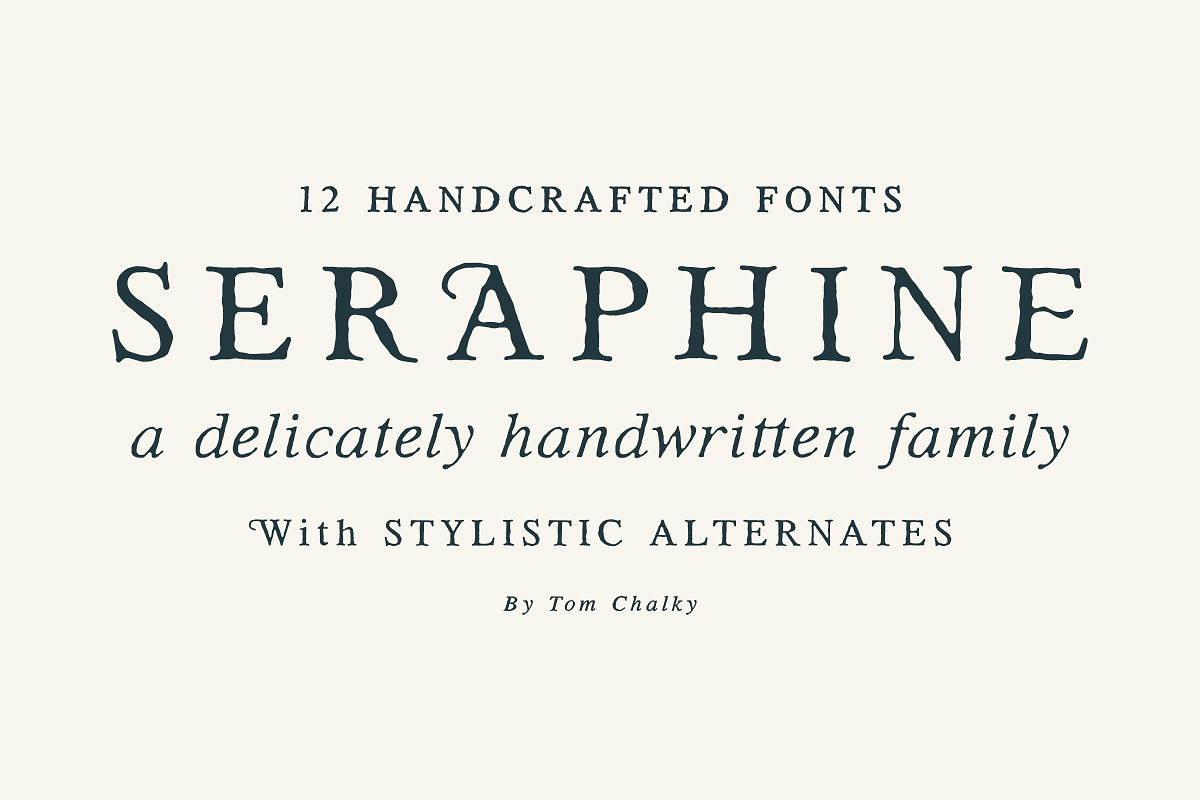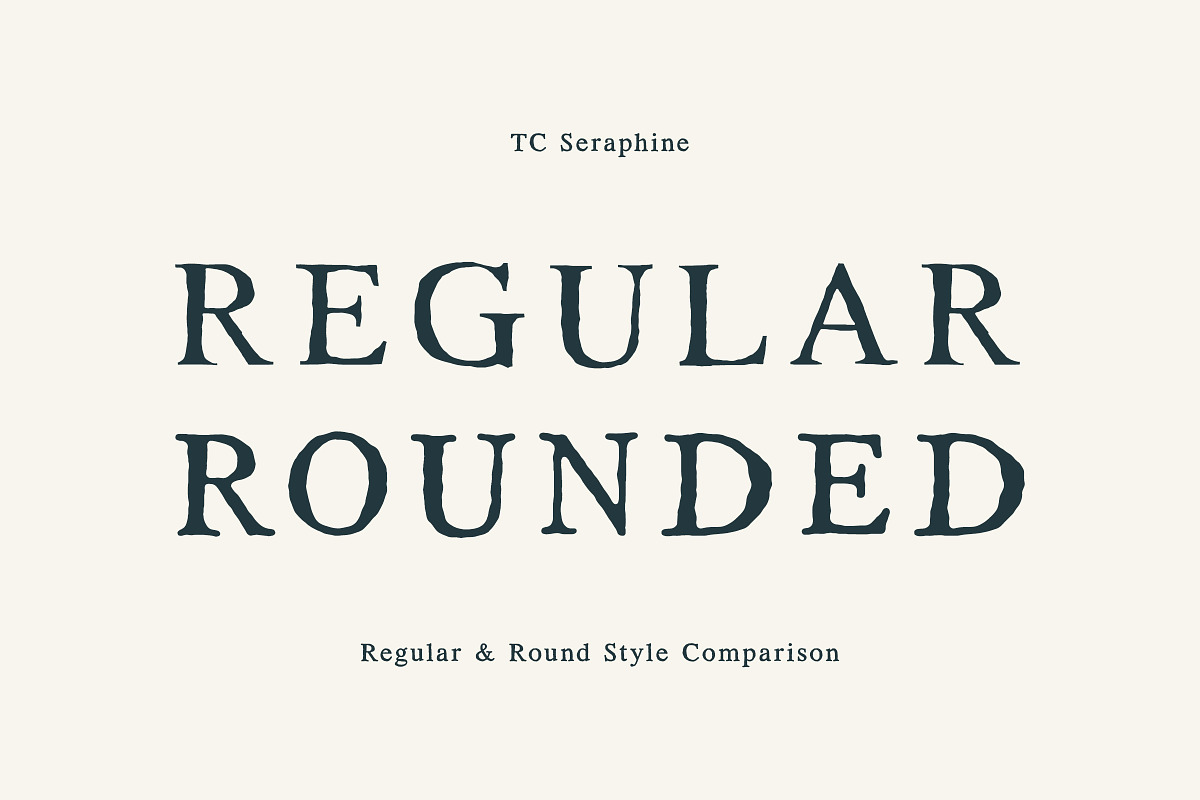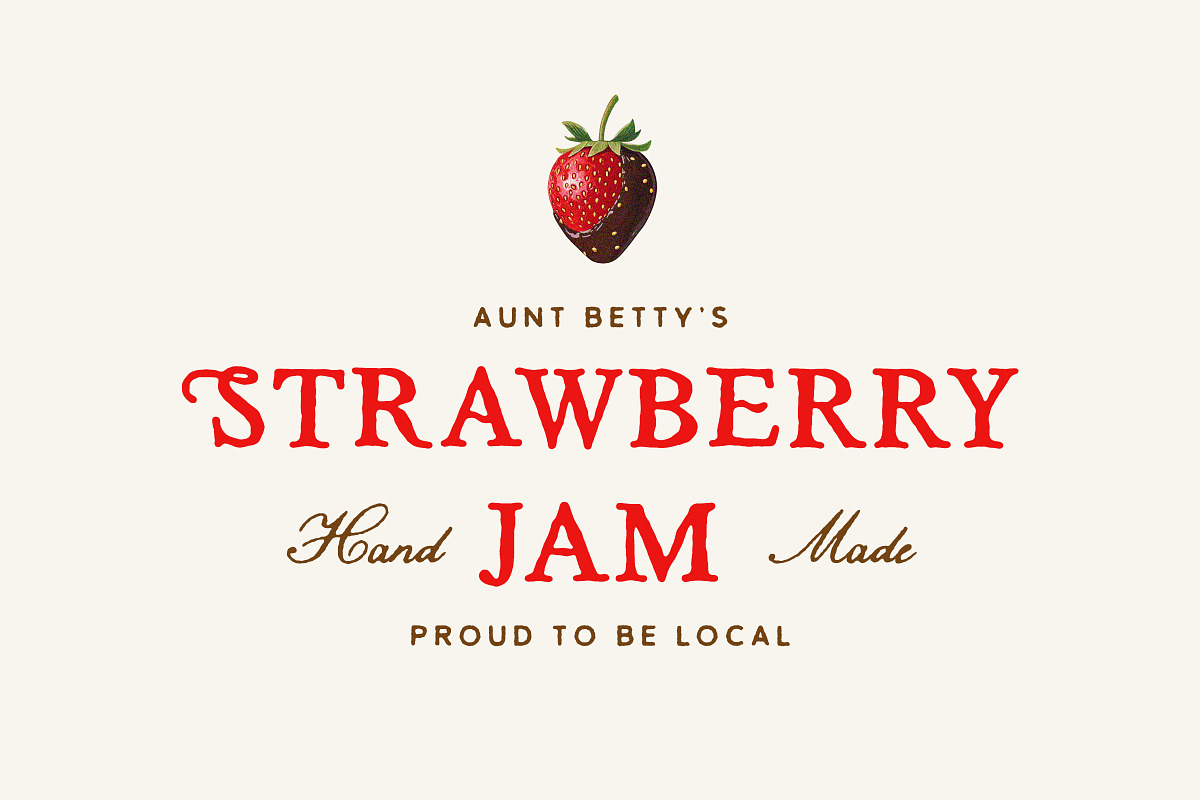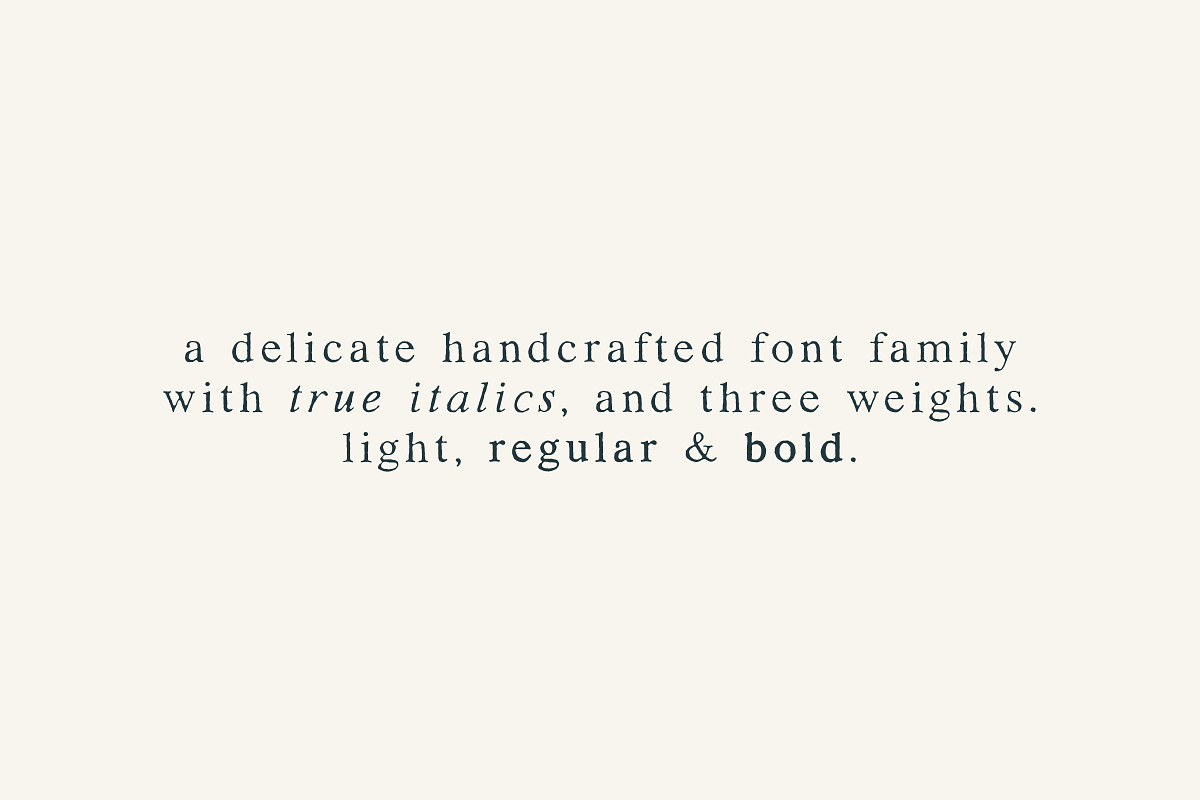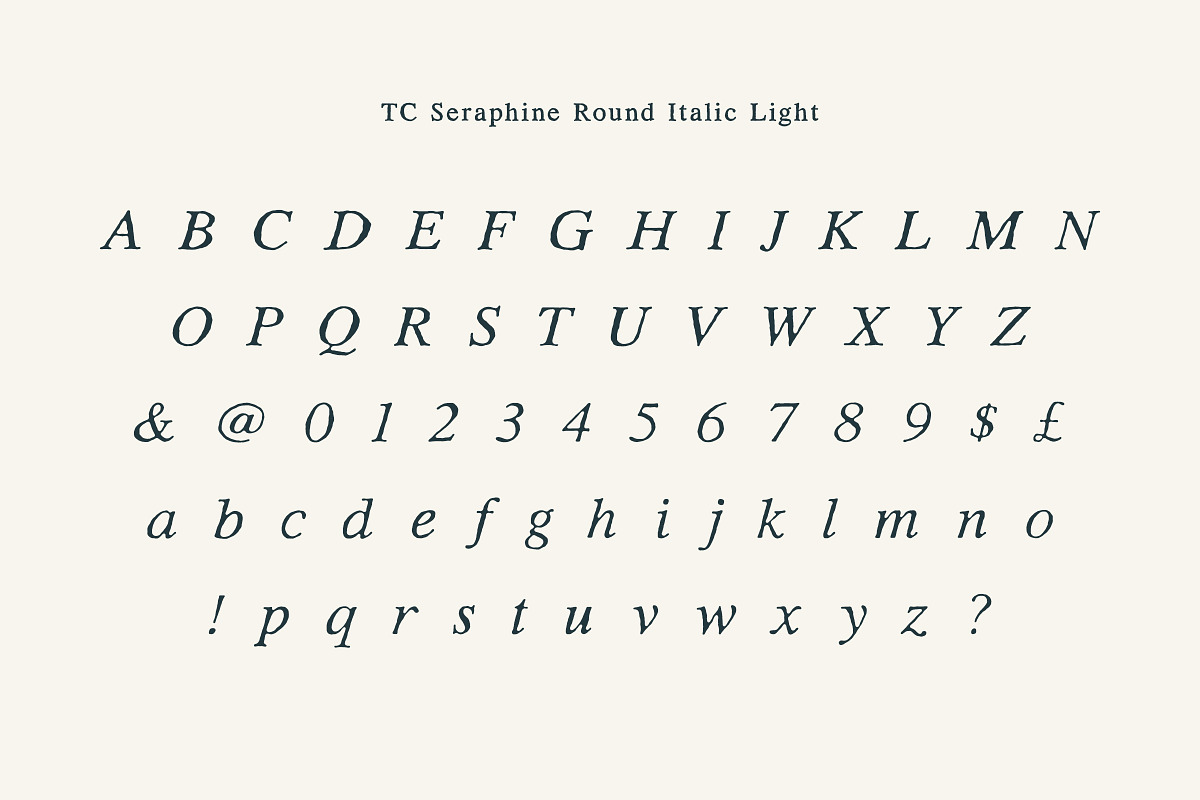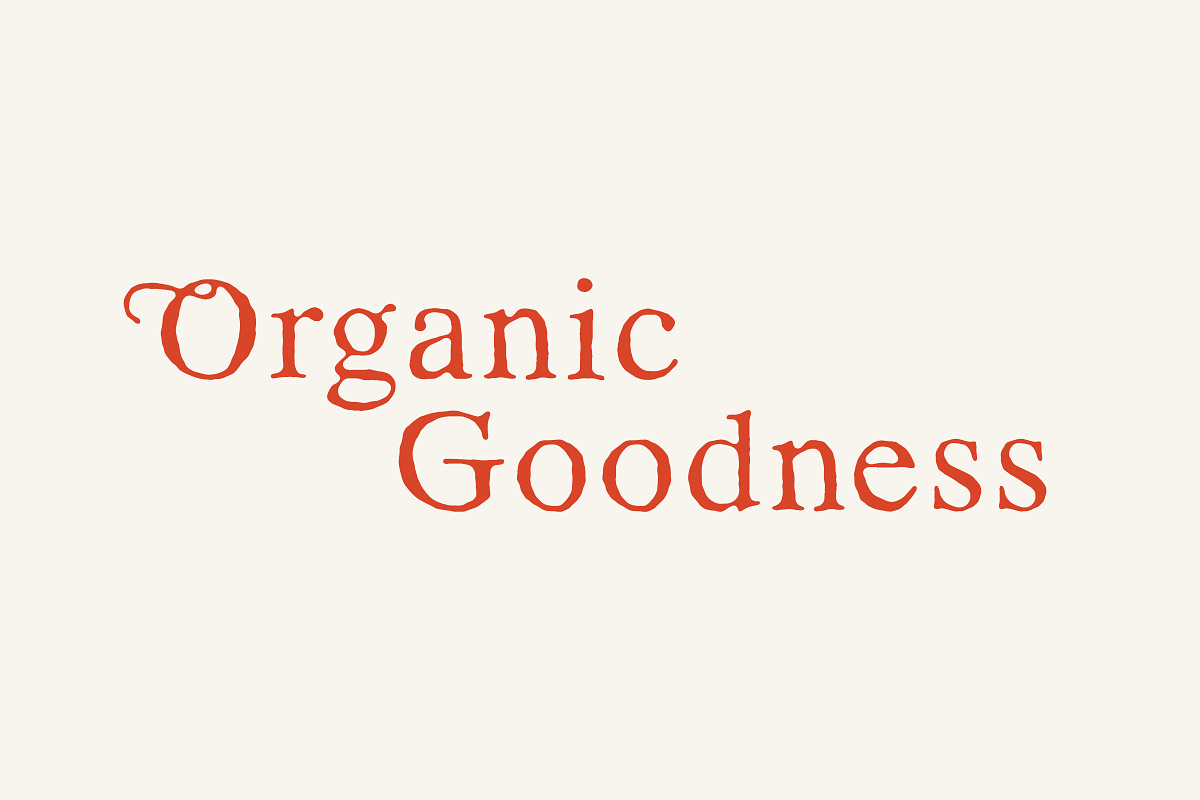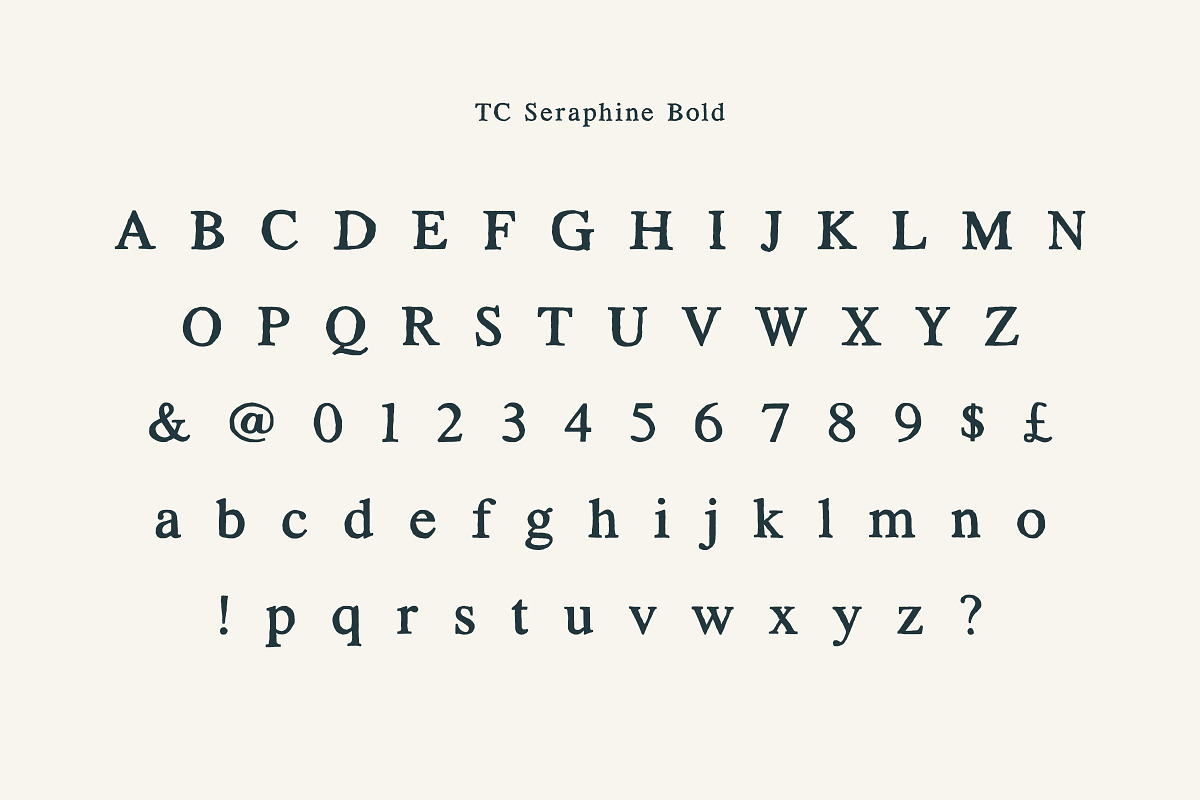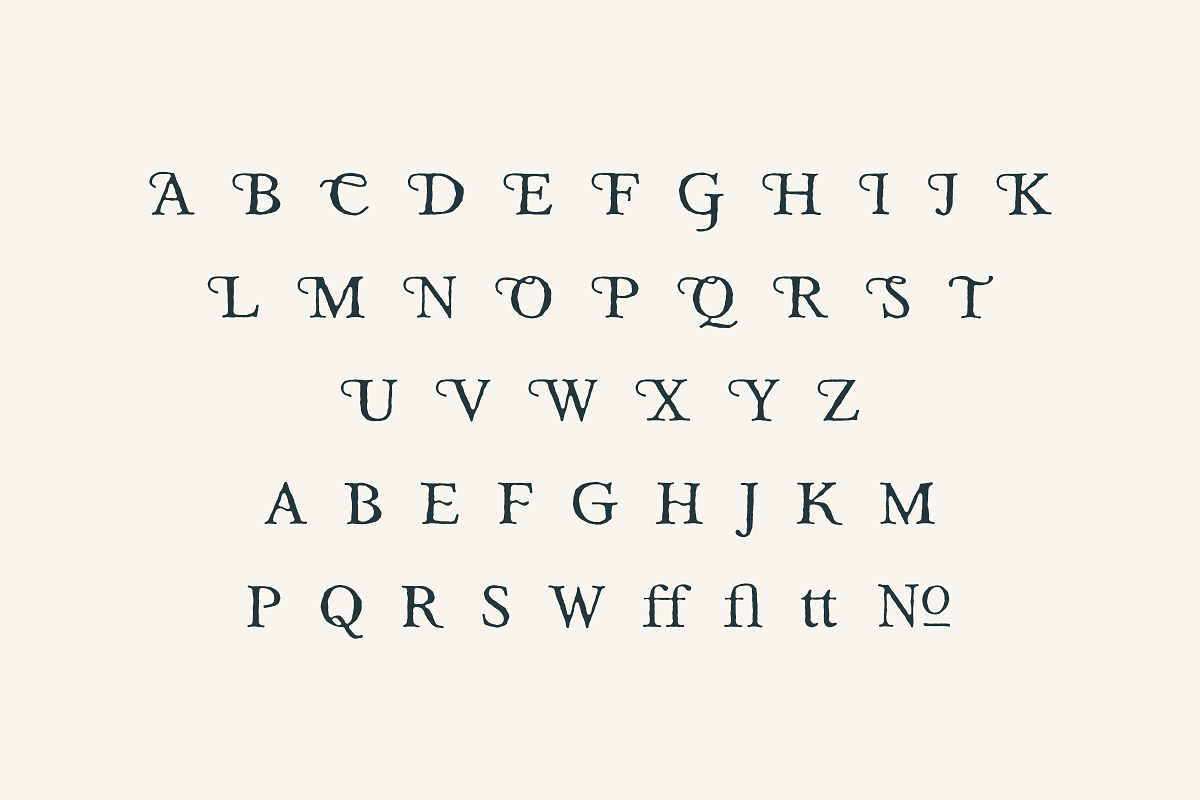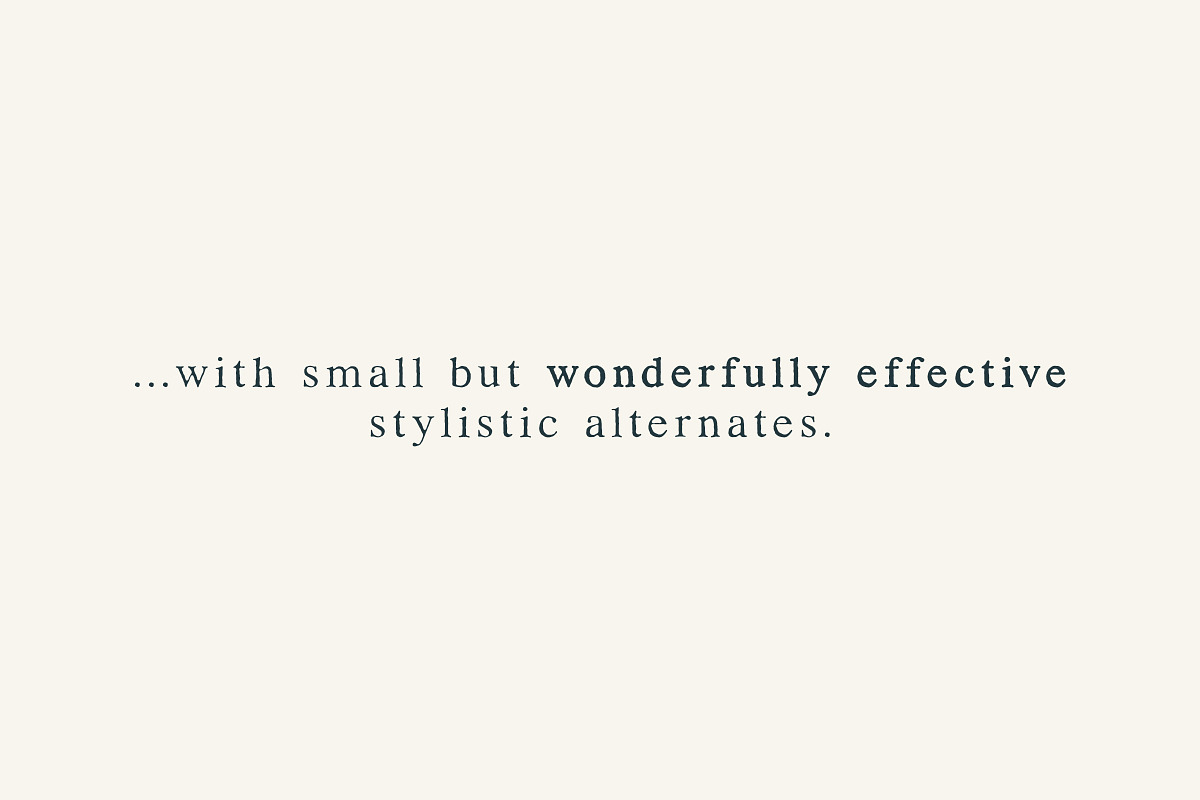
Seraphine Serif Font Family
Meet Seraphine – a serif font family with a delicate, handcrafted touch. With 12 fonts in total, Seraphine comes in both rounded and regular styles, each available in light, regular, and bold weights, plus true italics for a bit of extra flair.
Seraphine blends classic serif structure with a hint of human warmth, giving each letter a subtle, organic feel. Whether you're working on branding, editorial layouts, or packaging, this versatile family can adapt to a wide range of styles and projects!
- Full Latin 1 Multilingual Glyph Range
- Regular and Rounded Styles
- Light, Regular, and Bold Weights
- True Italic Variants
- Subtle and Effective Stylistic Alternates